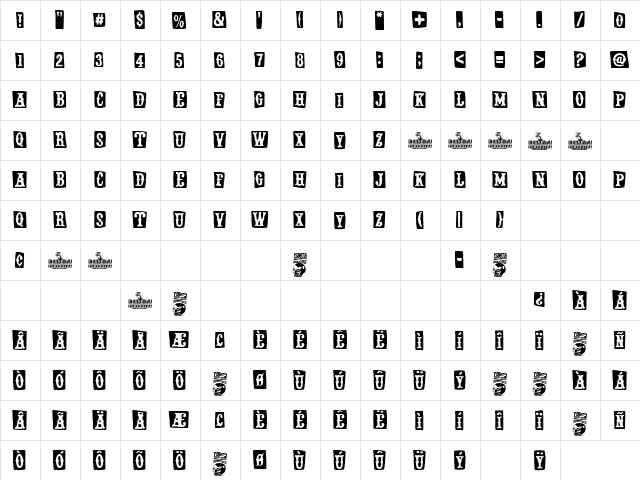
Se֯rita Esmeralda Regular
| Designer | Woodcutter Manero |
Design Context for Se֯rita Esmeralda Typeface
Se֯rita Esmeralda is a composed and adaptable typeface that performs quietly and consistently across a wide range of design contexts.